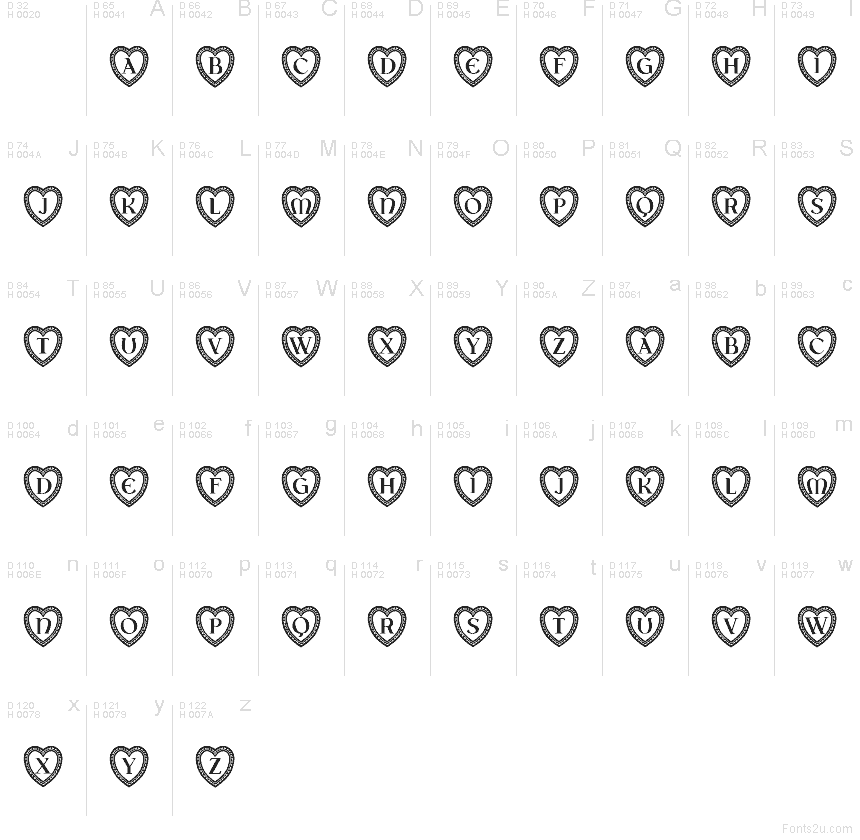
Licitar font by Vladimir Nikolic is a free decorative Valentine typeface that turns every letter into a little keepsake. Each character sits inside a hand-drawn heart with a lacy, cookie-like border, like something you’d find in a festive bakery window. The crisp black outlines, even spacing, and simple interior lettering keep it readable while still feeling ornate and sentimental.
Using Licitar, you can instantly dress up Valentine cards, wedding favors, gift tags, classroom printables, party invitations, and holiday social posts with a charming, folk-sweet vibe. This free font shines on short phrases and initials, especially at larger sizes where the heart details can breathe. Pair it with a clean sans serif for body text so Licitar can do the decorative storytelling.